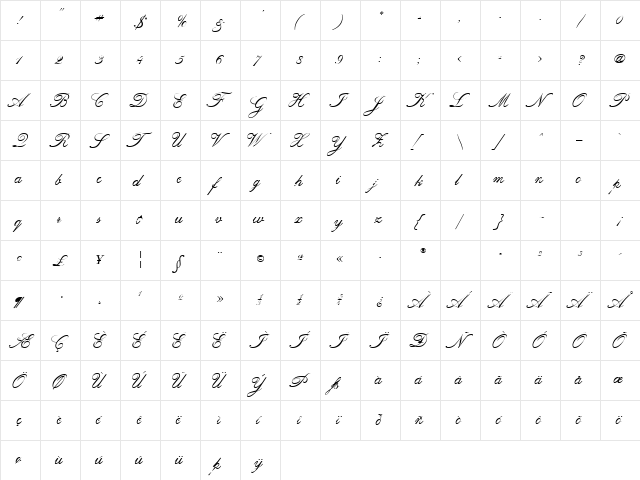
Hampton Script Regular
Design Context for Hampton Script Typeface
Hampton Script flows with the natural rhythm of handwritten lettering, making it ideal for designs that call for warmth and personal expression.
Font Pairing: Combine Hampton Script with a simple geometric sans for maximum contrast — the tension between flowing curves and clean structure is a classic typographic pairing.
Pro Tip: Pair Hampton Script with a clean sans-serif for supporting text. The contrast between fluid script and geometric structure creates an elegant typographic hierarchy.